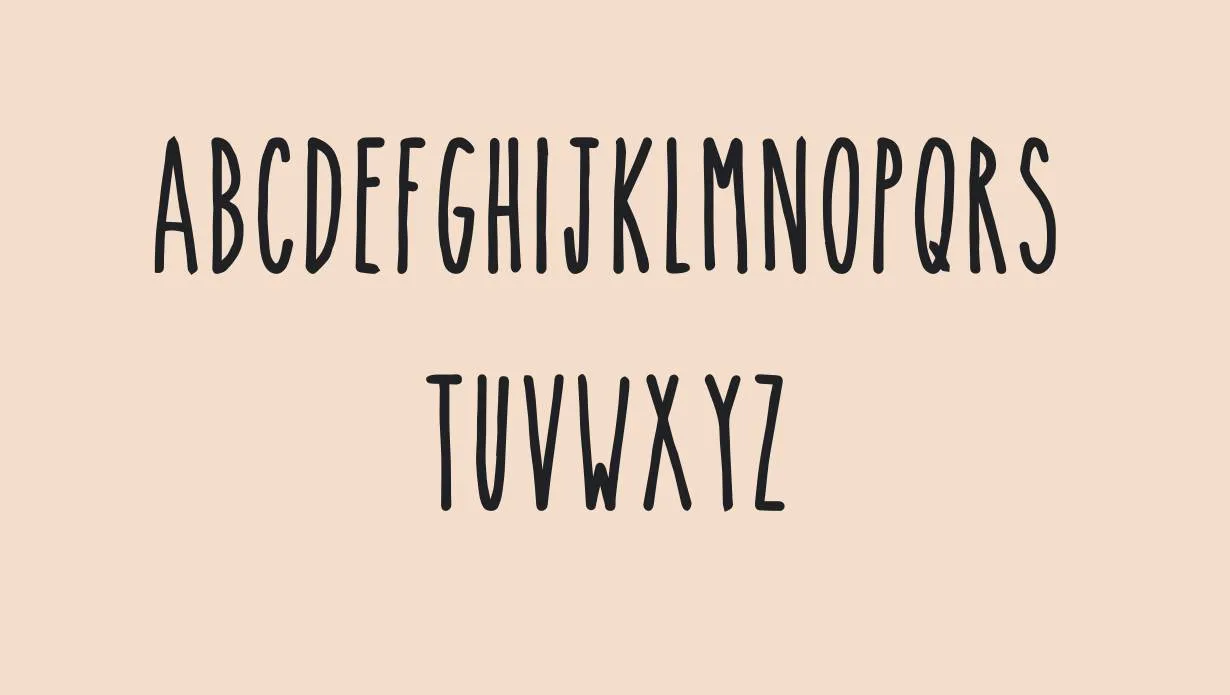
The Skinny font is defined by its slender and sleek appearance, often found in fashion magazines, minimalist designs, or projects requiring a slim and refined look.
Its clean and minimalistic style offers a touch of sophistication and simplicity to text, making it a great choice for sleek and modern designs aiming for an understated yet chic vibe. Combining this typeface with the geo sans font opens up the potential to create stunning displays.